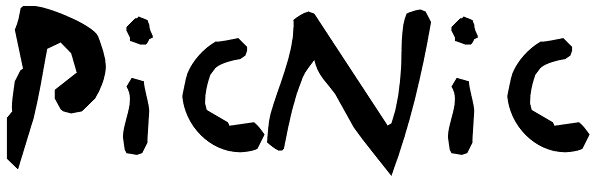
PicNic
Originally intended to be the speech-balloon font. PicNic is very successful in creating the illusion of hand lettering. OpenType features: over 600 glyphes Small Capitalis Discretionary Ligatures Standard Ligatures Oldstyle Figures Titling Feature
PicNic
PicNic Bold